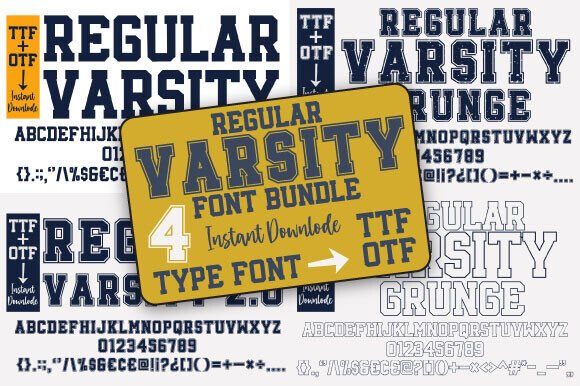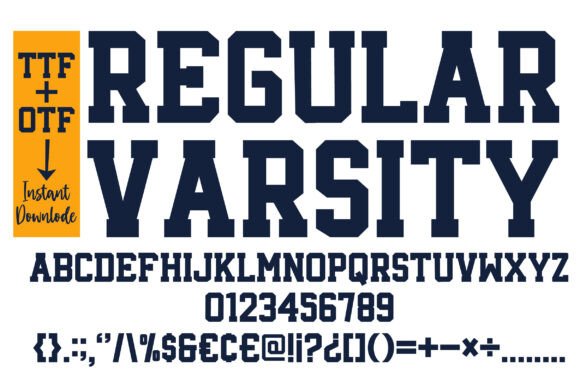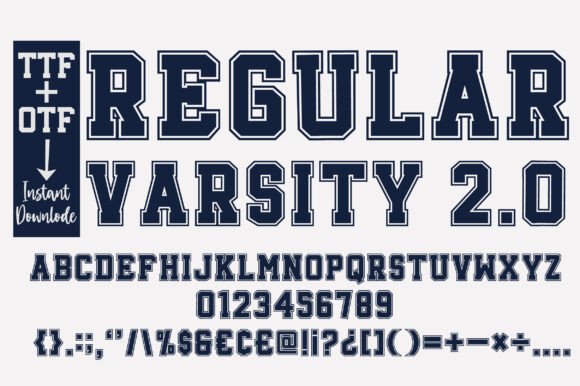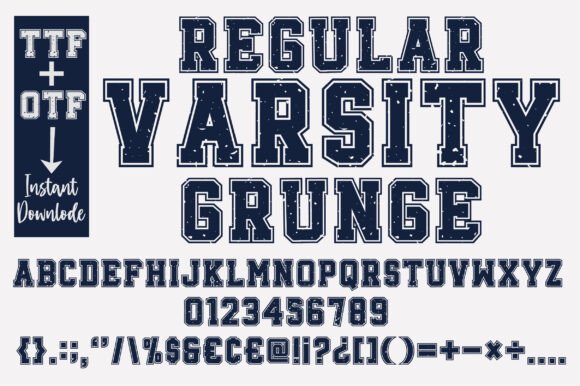
About the Regular Varsity Font
Unleash your creativity with Regular Varsity Font, a versatile font perfect for a wide range of applications. Regular varsity is a varsity type font. Regular varsity font is suitable for varsity style projects. Perfect for sports enthusiasts and college fans, this font includes varsity letters and numbers, expressing the sports enthusiast winner. 4 types of fonts are included here. Which applies to all sports-themed projects, stationery, college, apparel etc. It’s great for making things look display and important!
Regular Varsity’s bold, energetic style shines in headlines, logos, and short, impactful displays. It’s ideal for sports branding, posters, and apparel graphics where a strong, confident message is needed. However, its weight and condensed letterforms make it less suitable for body text or UI elements requiring high readability.
Pairing Regular Varsity works best with clean, neutral sans-serif fonts like Helvetica or Open Sans for a balanced contrast, or a more playful script for a vintage athletic feel. Consider a geometric sans-serif for a modern, streamlined aesthetic. Avoid pairing it with other bold or highly decorative fonts to prevent visual overload.
The font projects a powerful, nostalgic, and ultimately optimistic personality; perfectly suited to brands focused on achievement, tradition, and spirited competition.